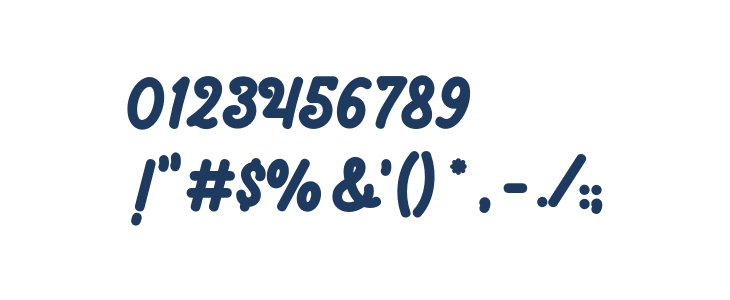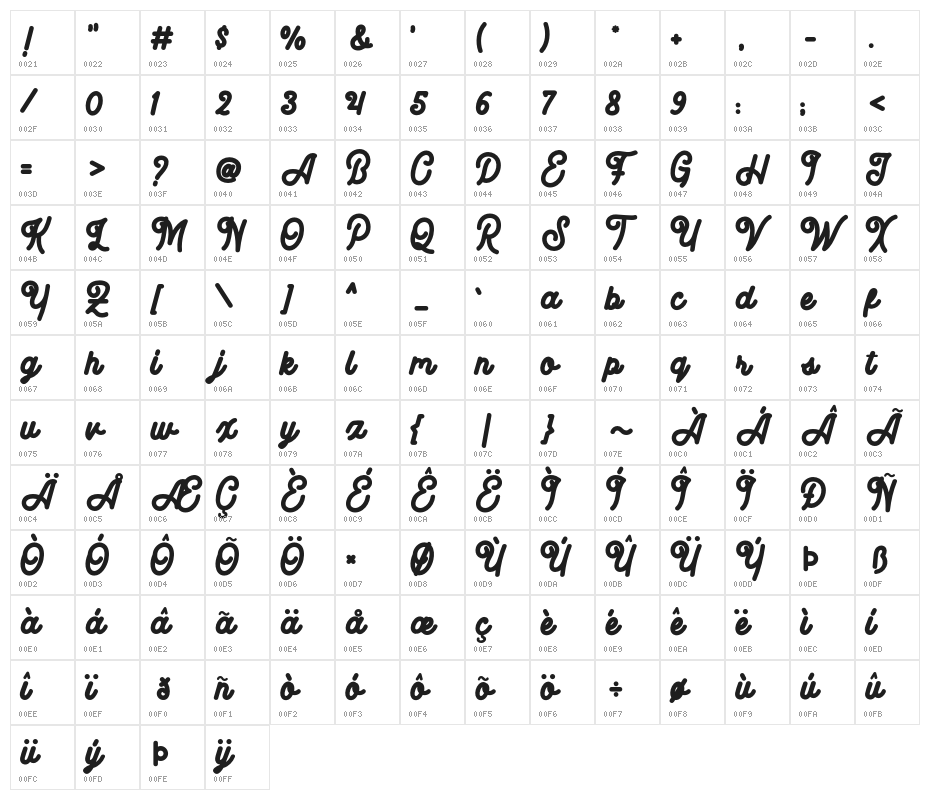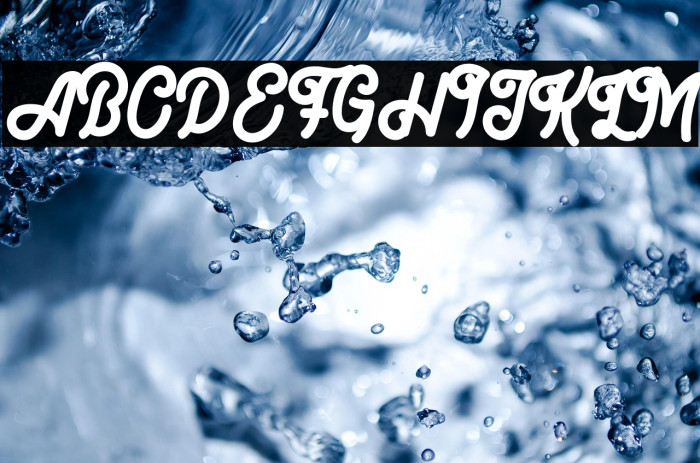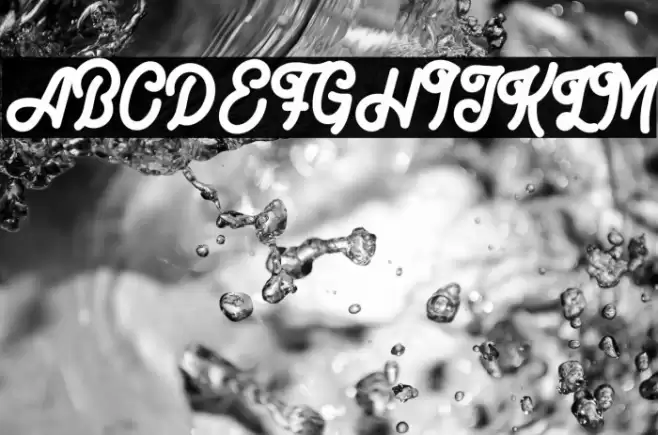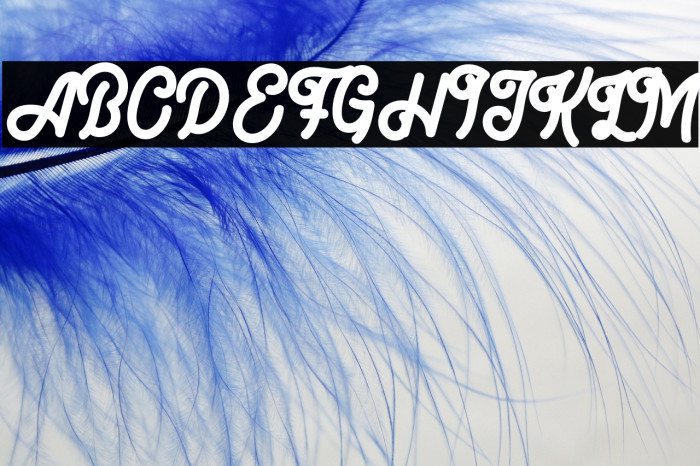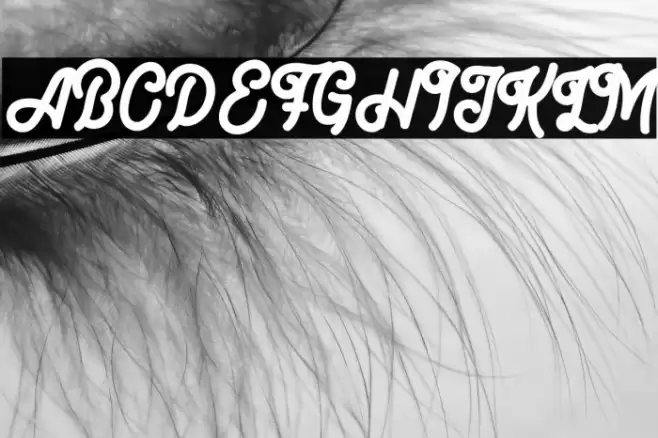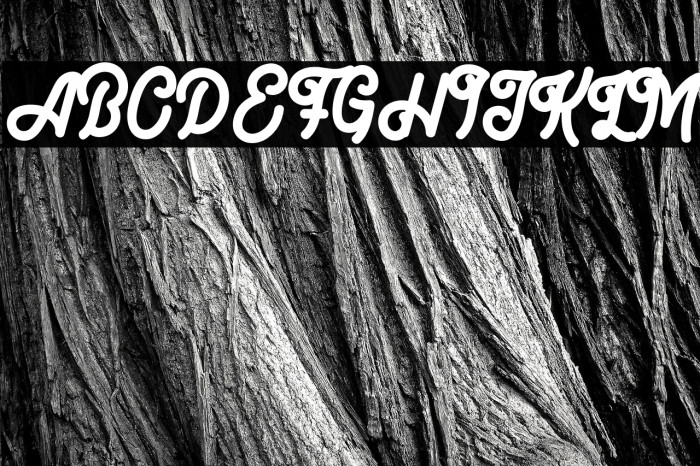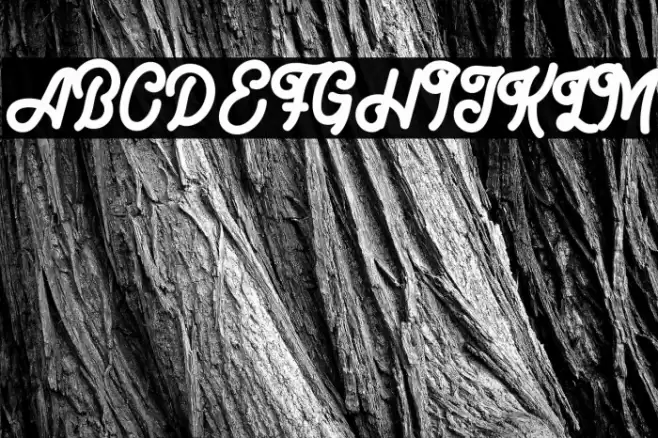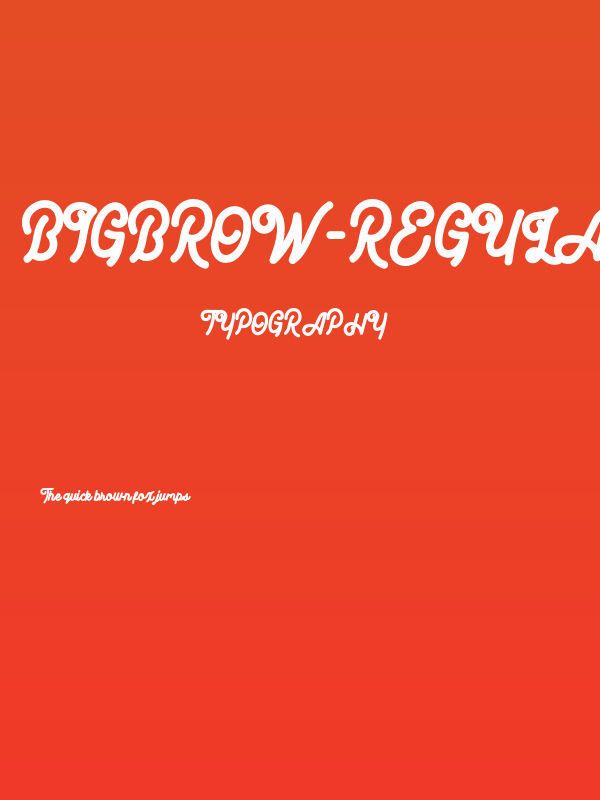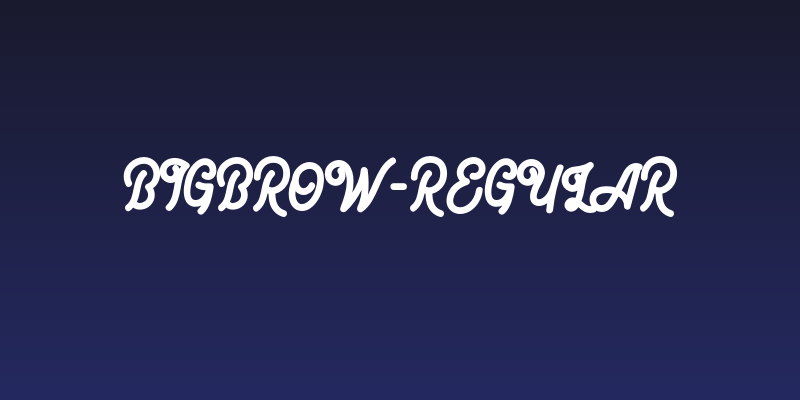
BigBrow-Regular Font
BigBrow-Regular Description
This font features a bold, cursive style with a playful and energetic appearance. The letters are interconnected, creating a flowing script that is both dynamic and eye-catching. The uppercase letters maintain a consistent height, while the lowercase letters have a slightly exaggerated loop, adding to the font's whimsical nature. The numbers and special characters are designed to match the overall style, ensuring a cohesive look across all elements. The thick strokes and rounded edges give it a friendly and approachable feel, making it suitable for a variety of creative projects.